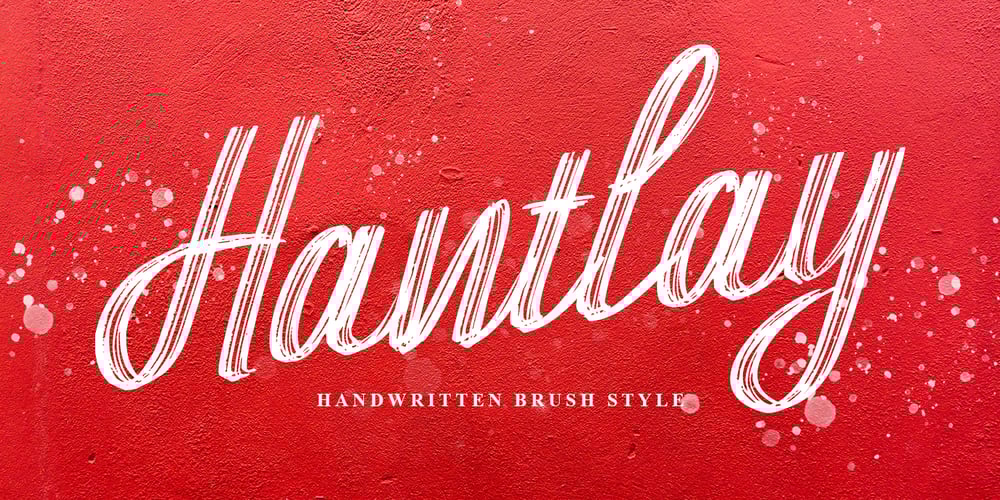
Hantlay Font Family was designed by Yusup Saputra and published by DYSA Studio. Hantlay contains 1 styles and family package options. Hantlay is a handwritten brush font. This another collection of script is perfect for your next personal branding project, excellent for your business. Hantlay have a smooth edges, so this font gives an authentic handcrafted feel style.Hantlay is perfect choice for people looking for clean, modern, minimalist, elegant, beauty design styles.Suitable for almost any graphic designs such as logo, branding materials, business cards, gift cards, t-shirt, cover, thumbnail, print, poster, photography, quotes .etc